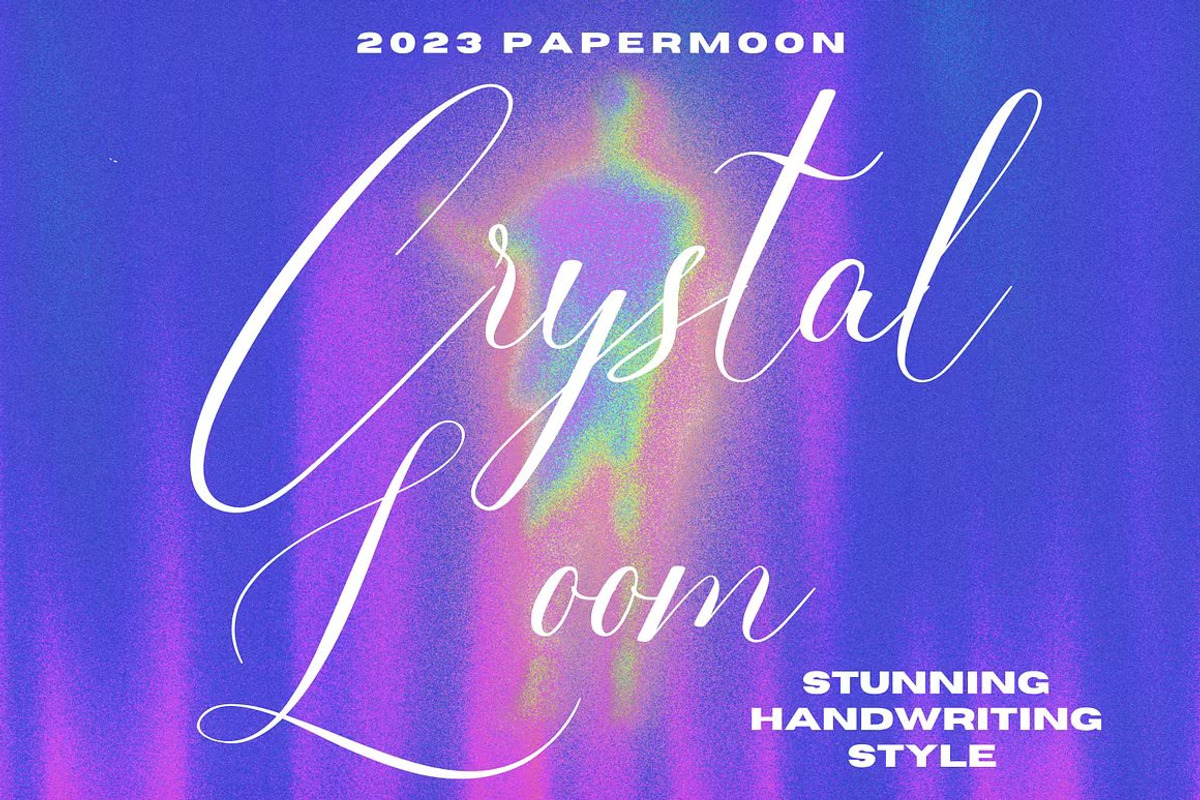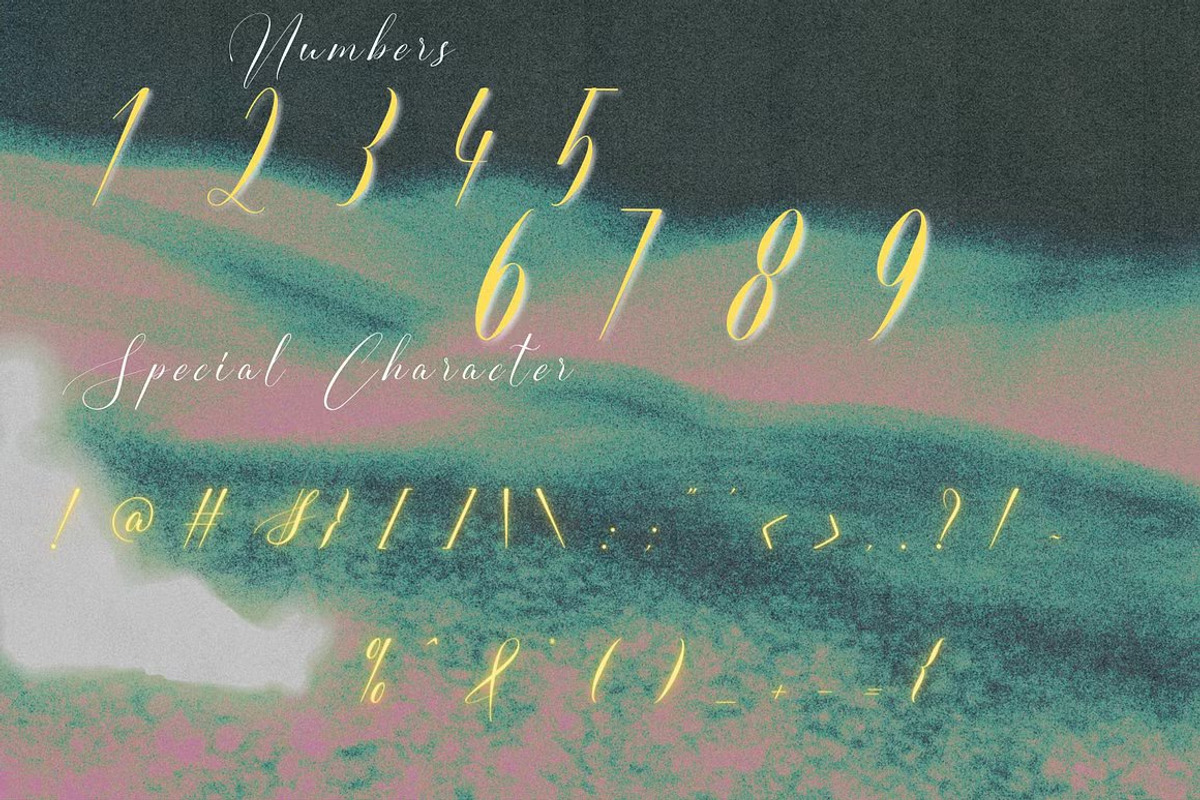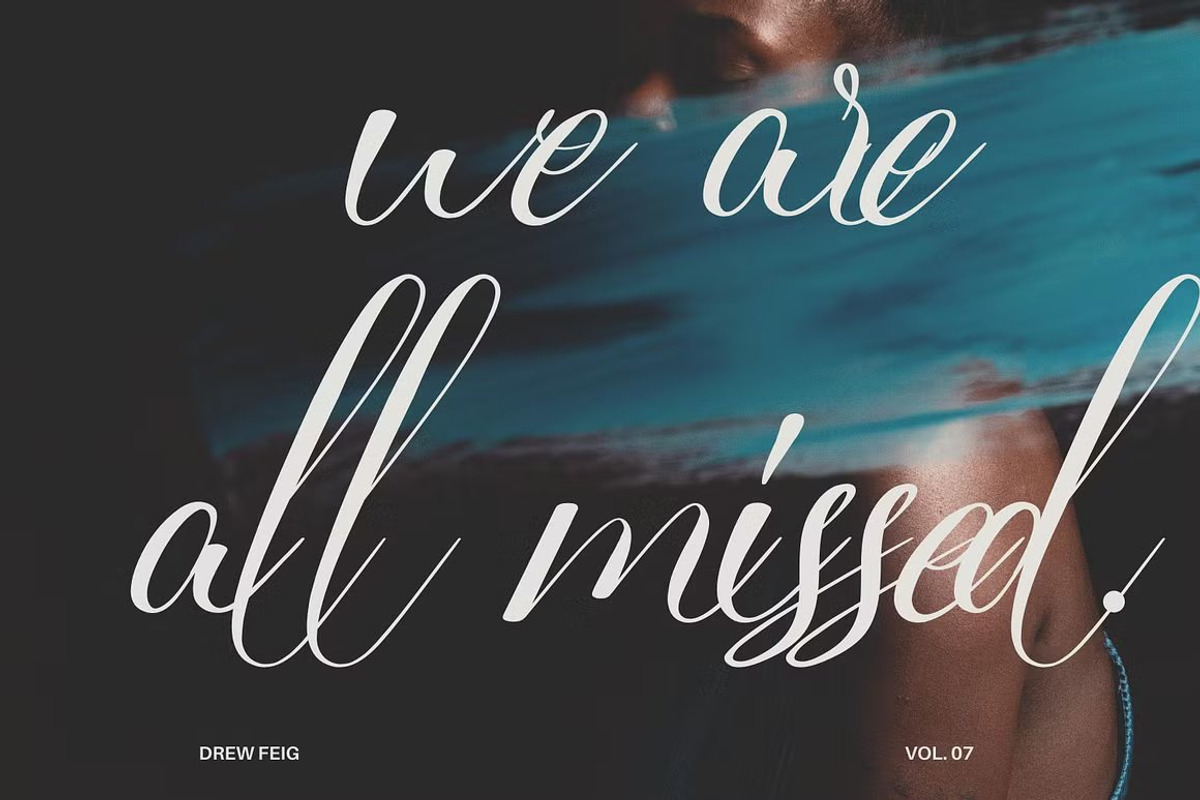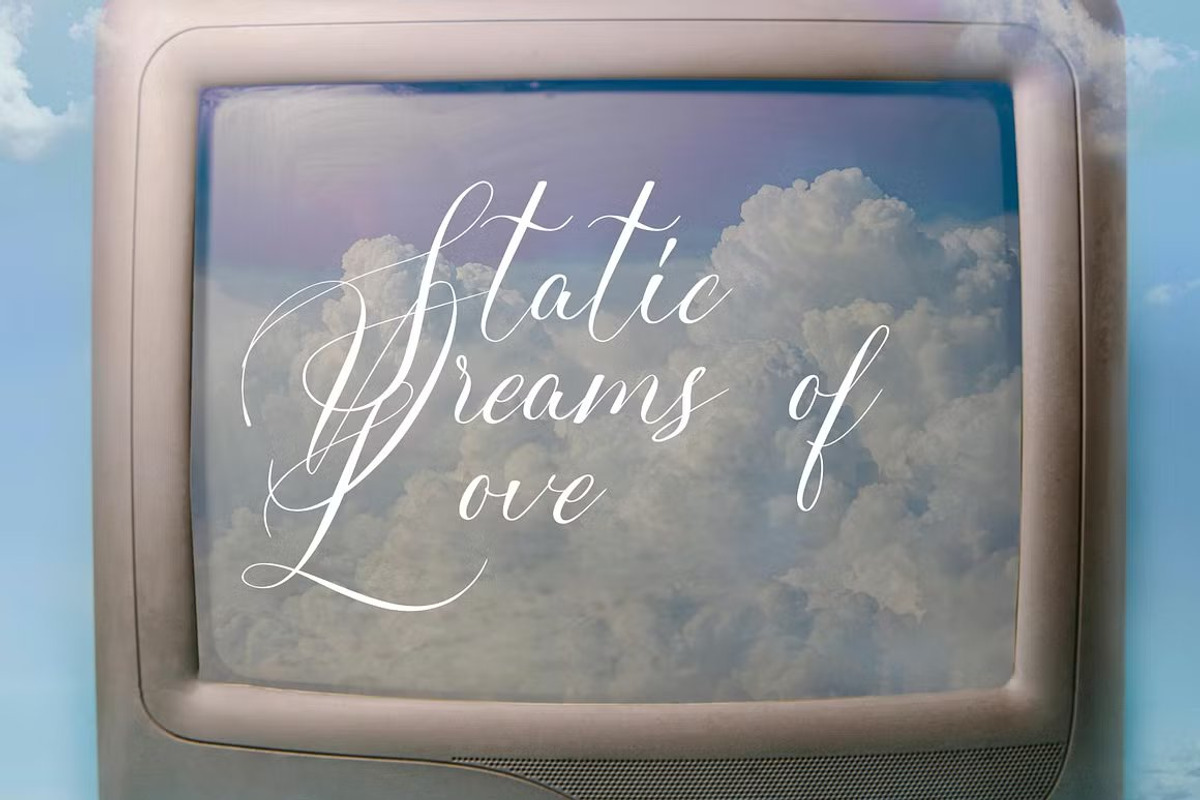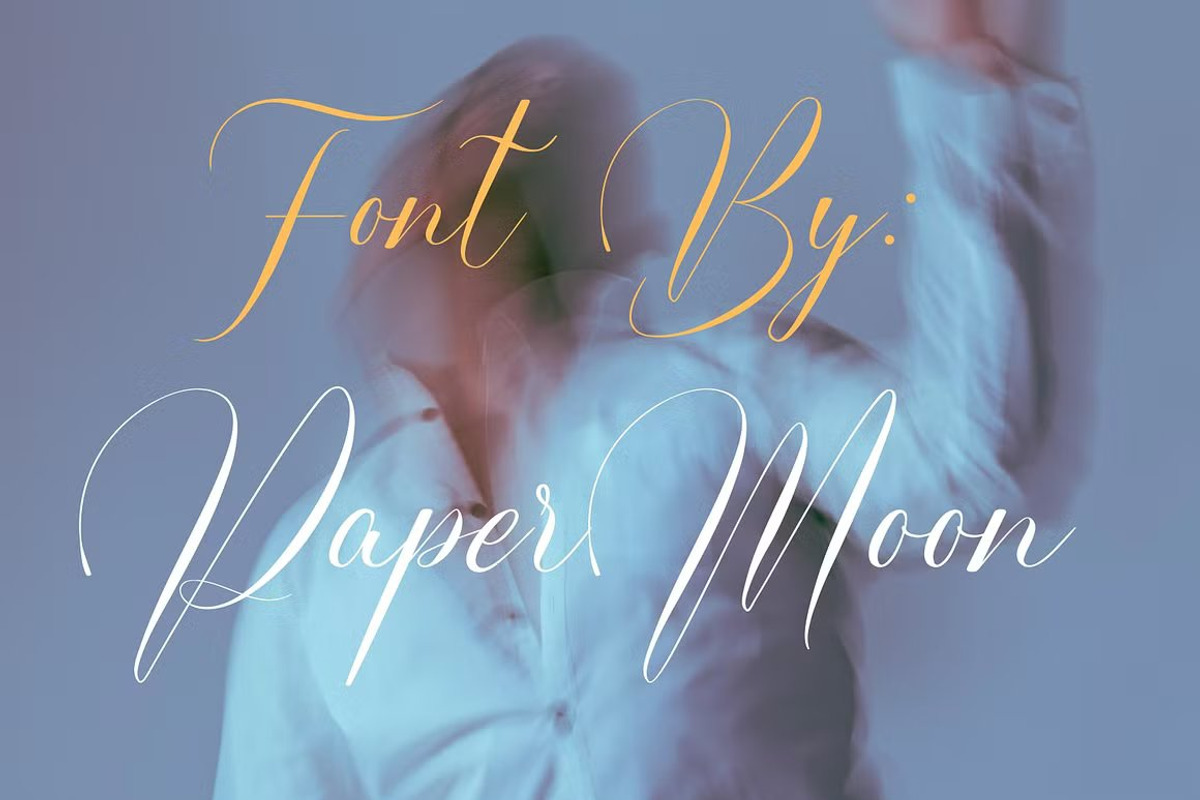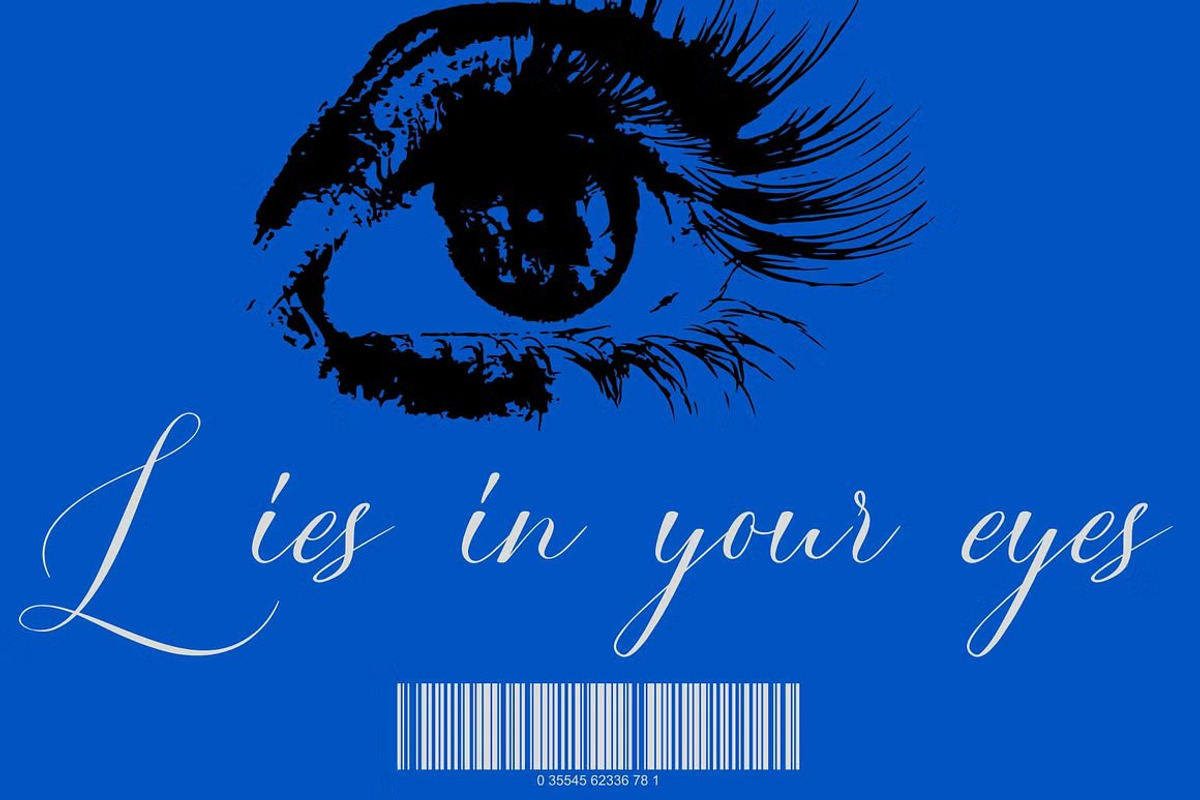
Crystal Loom Handwriting Font
Introducing Crystal Loom: An Elegant Calligraphy Script Font for Timeless Designs
Step into the world of Crystal Loom, a captivating calligraphy font renowned for its exquisite handwritten style and unparalleled craftsmanship. Each character is meticulously crafted, spaced, and kerned to deliver an original and sophisticated look, exuding timeless charm and elegance in every stroke.
Add the enchanting beauty of Crystal Loom to your projects and transform your designs with its timeless calligraphic elegance.